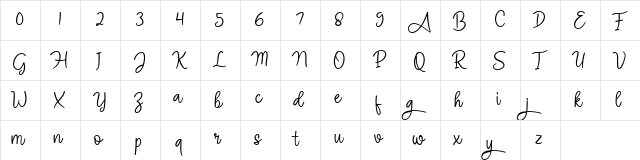
Angel Signature Regular
Design Context for Angel Signature Typeface
Angel Signature is a composed and adaptable typeface that performs quietly and consistently across a wide range of design contexts.